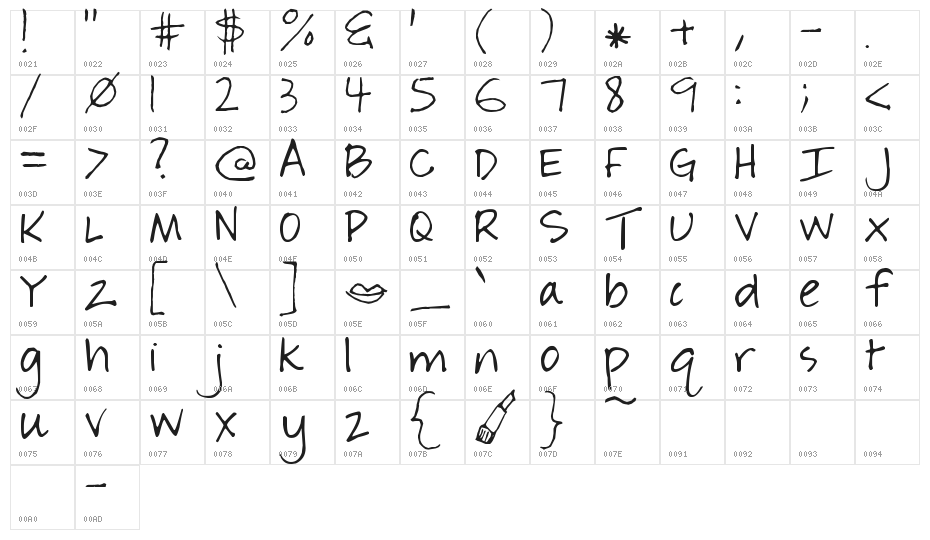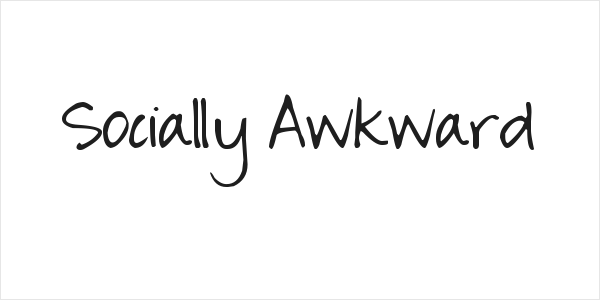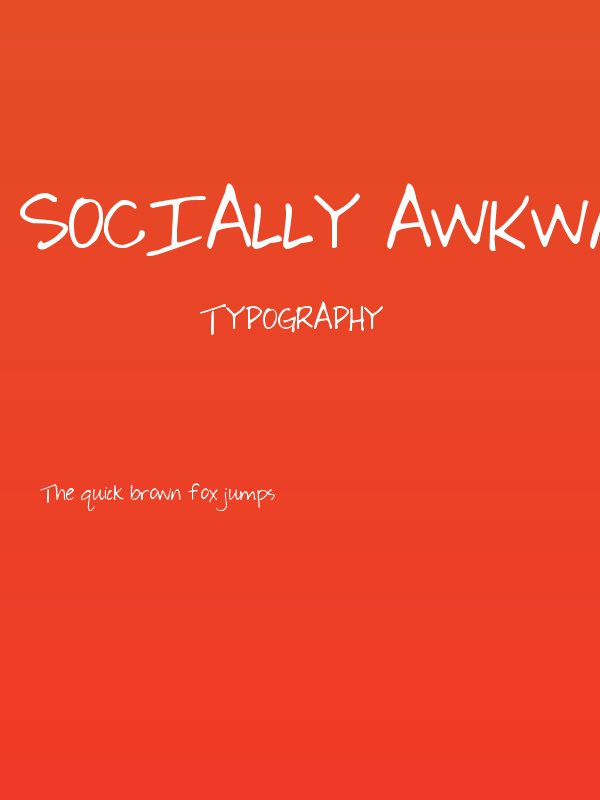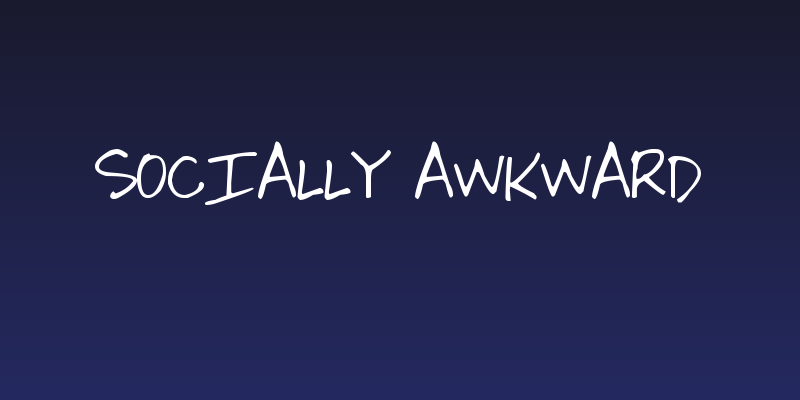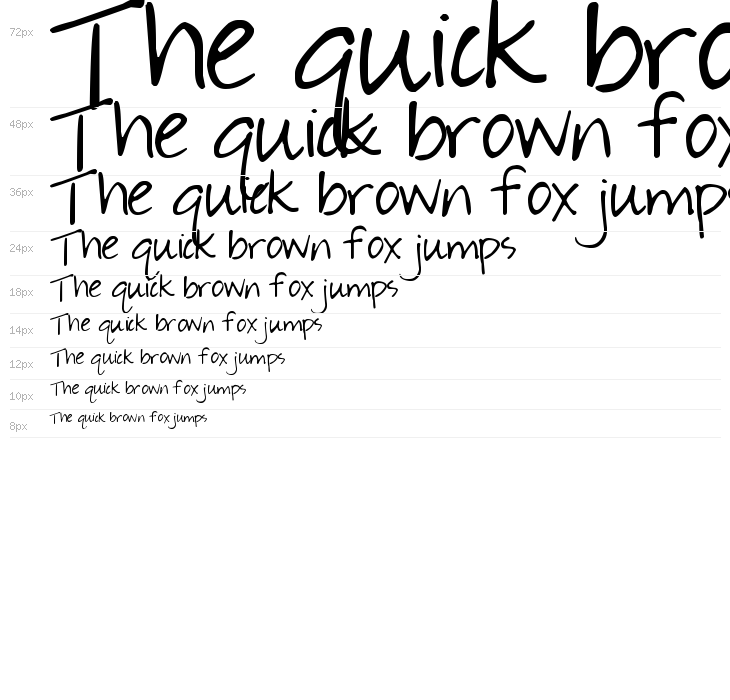
Socially Awkward Font
Socially Awkward Description
This font exudes a casual and playful vibe, characterized by its handwritten style that mimics natural penmanship. The letters are slightly irregular, giving it an authentic, human touch. The strokes are uneven, with a medium contrast between thick and thin lines, adding to its informal charm. The characters are well-spaced, ensuring readability while maintaining a relaxed feel. This font is perfect for projects that require a personal, approachable aesthetic, such as invitations, greeting cards, or social media graphics. Its unique style can add a touch of whimsy and creativity to any design.
Overall StyleCasual, Playful
Use CaseInvitations, Greeting cards, Social media graphics
Proposed ProjectsIdeal for invitations, greeting cards, social media graphics, and creative projects requiring a personal touch.